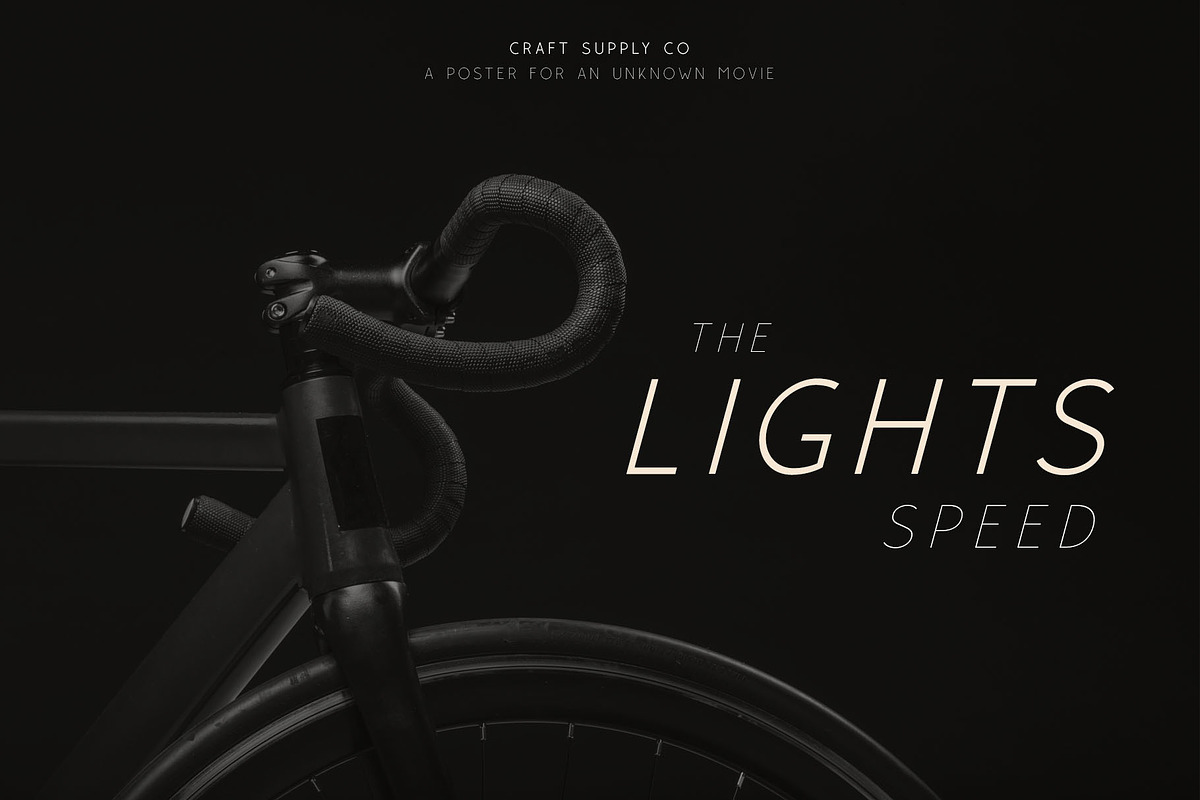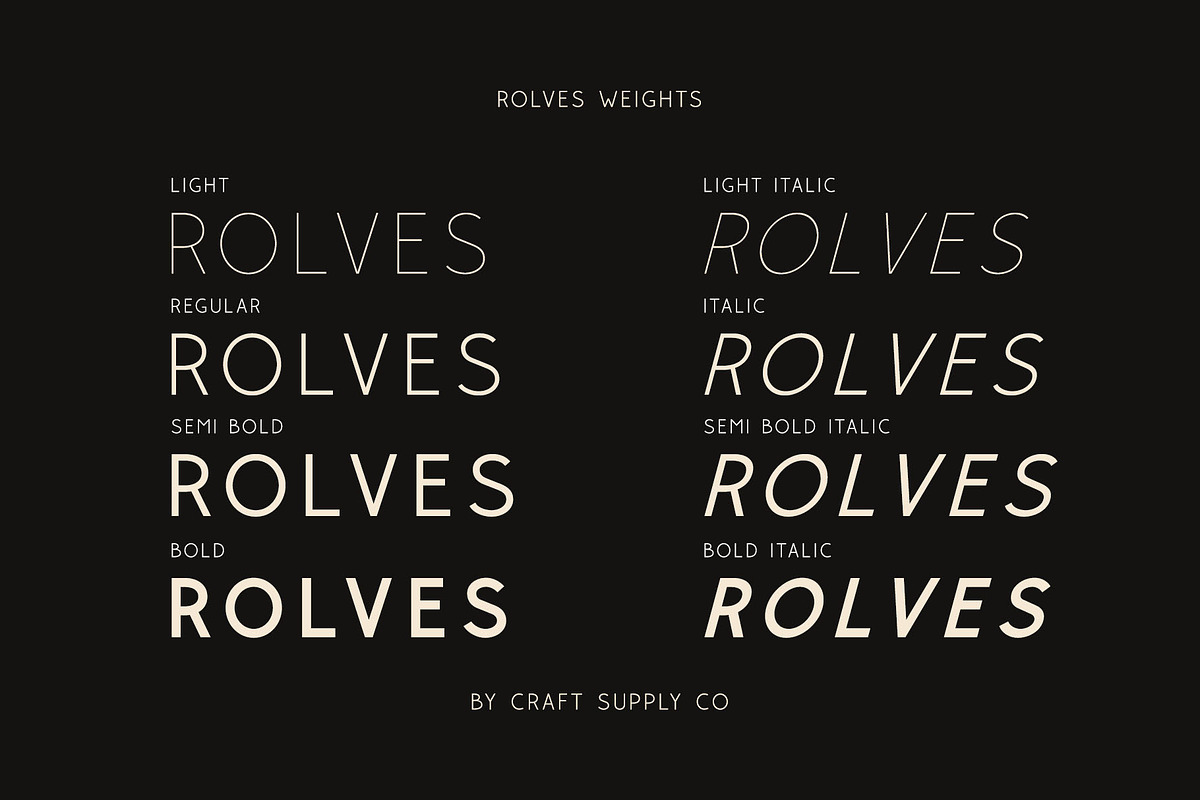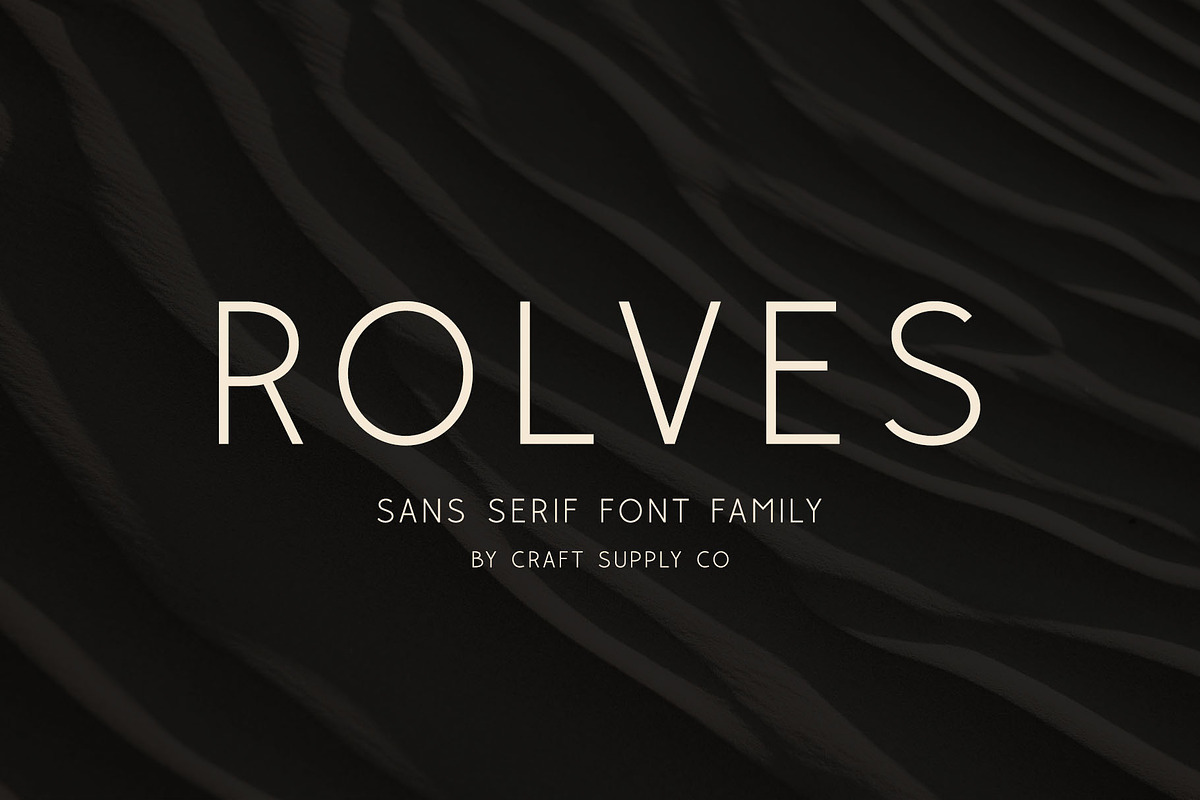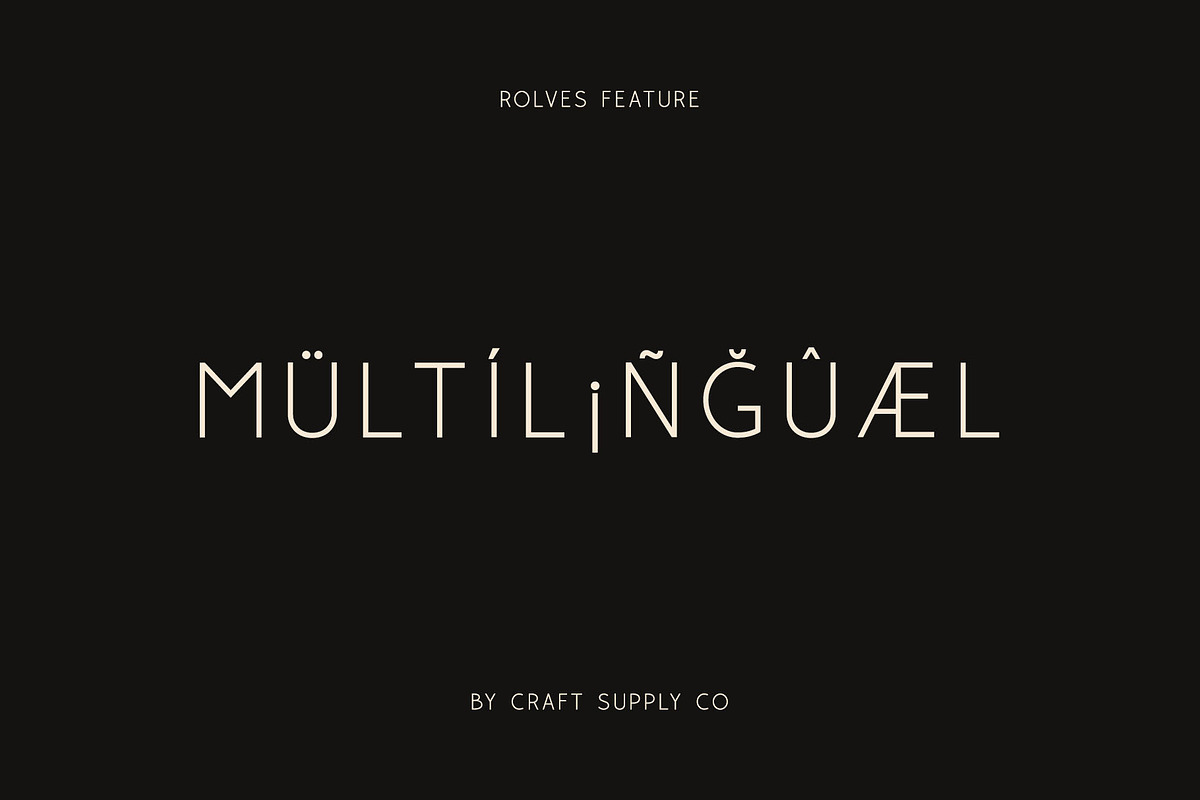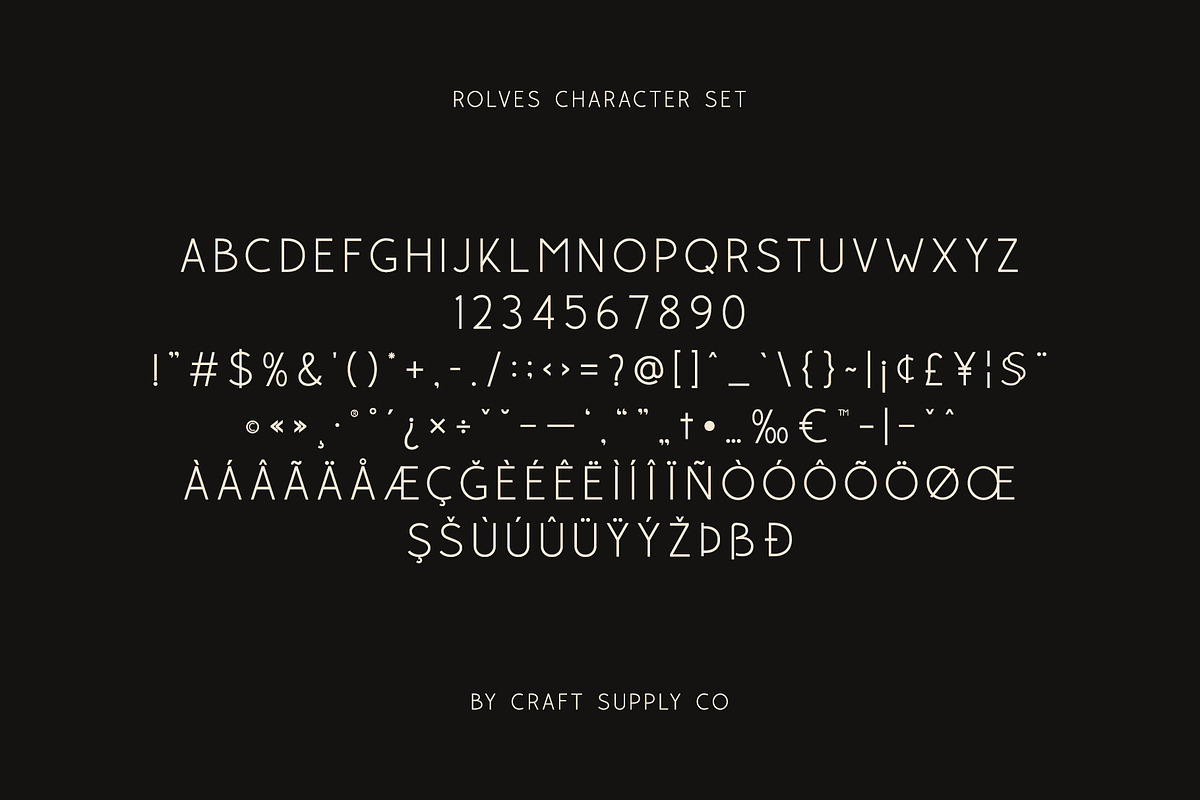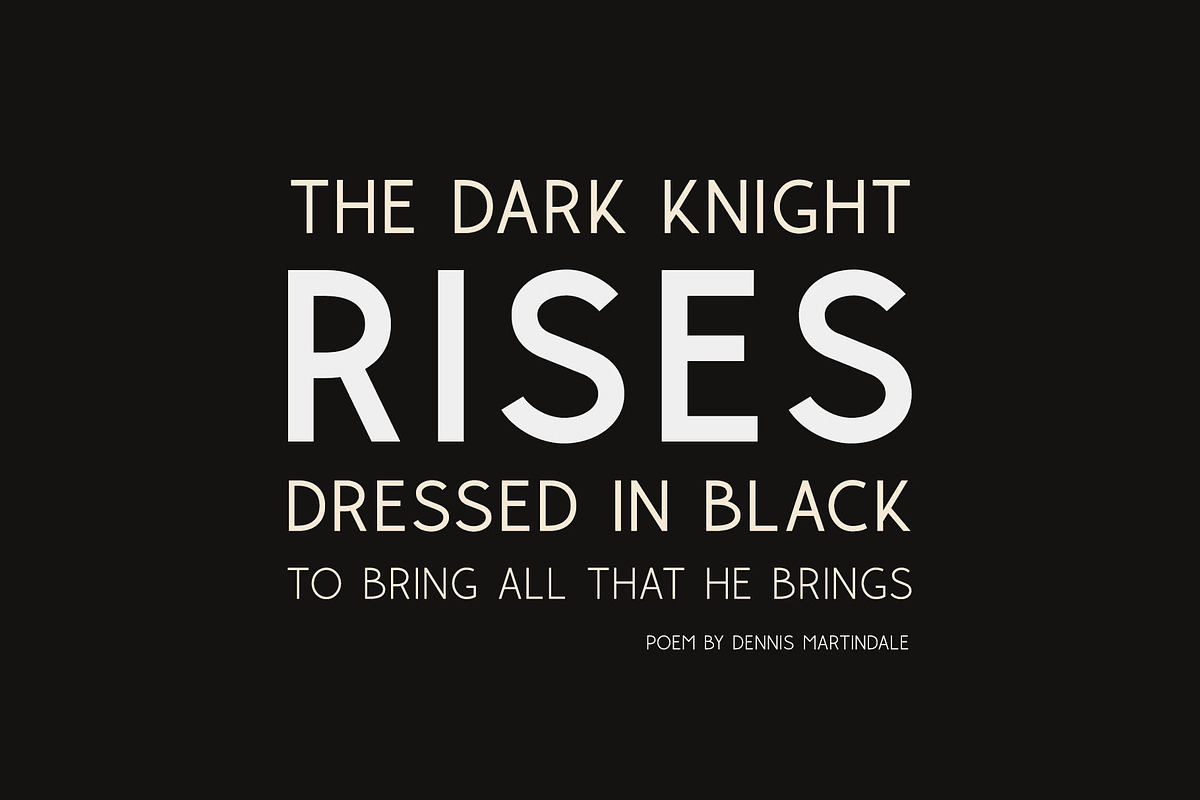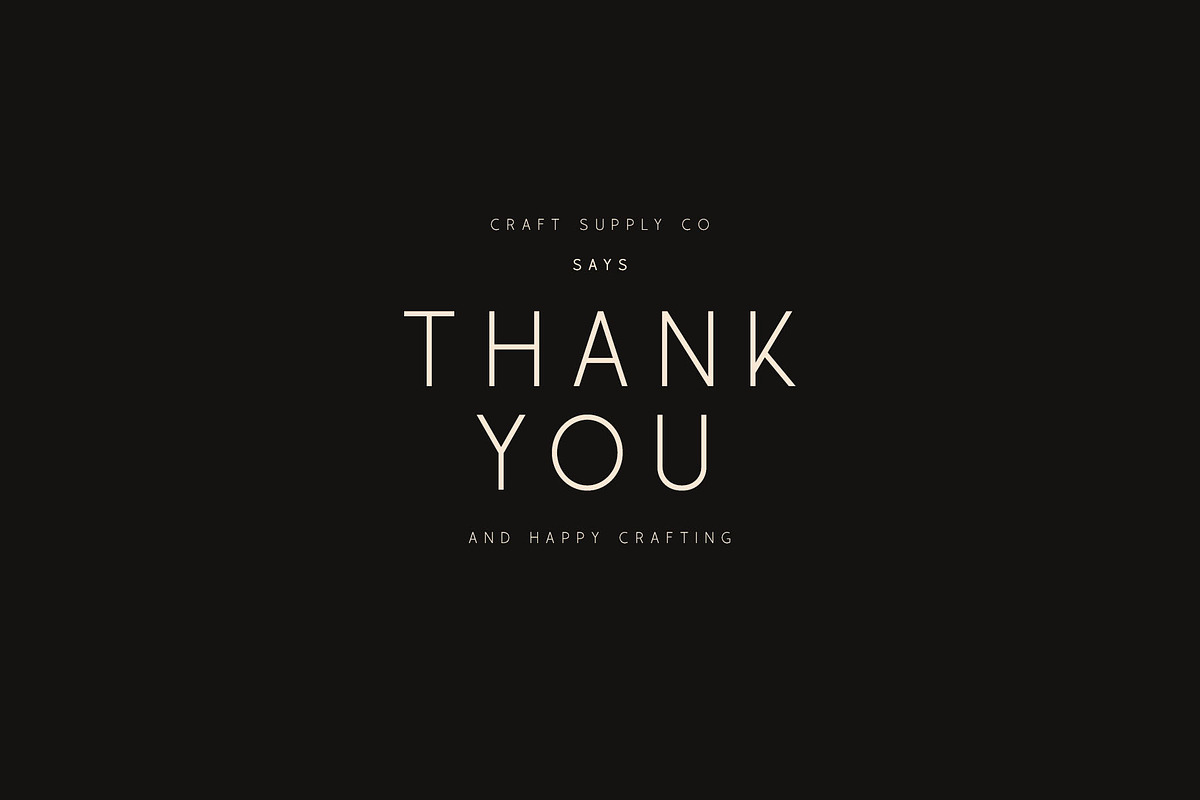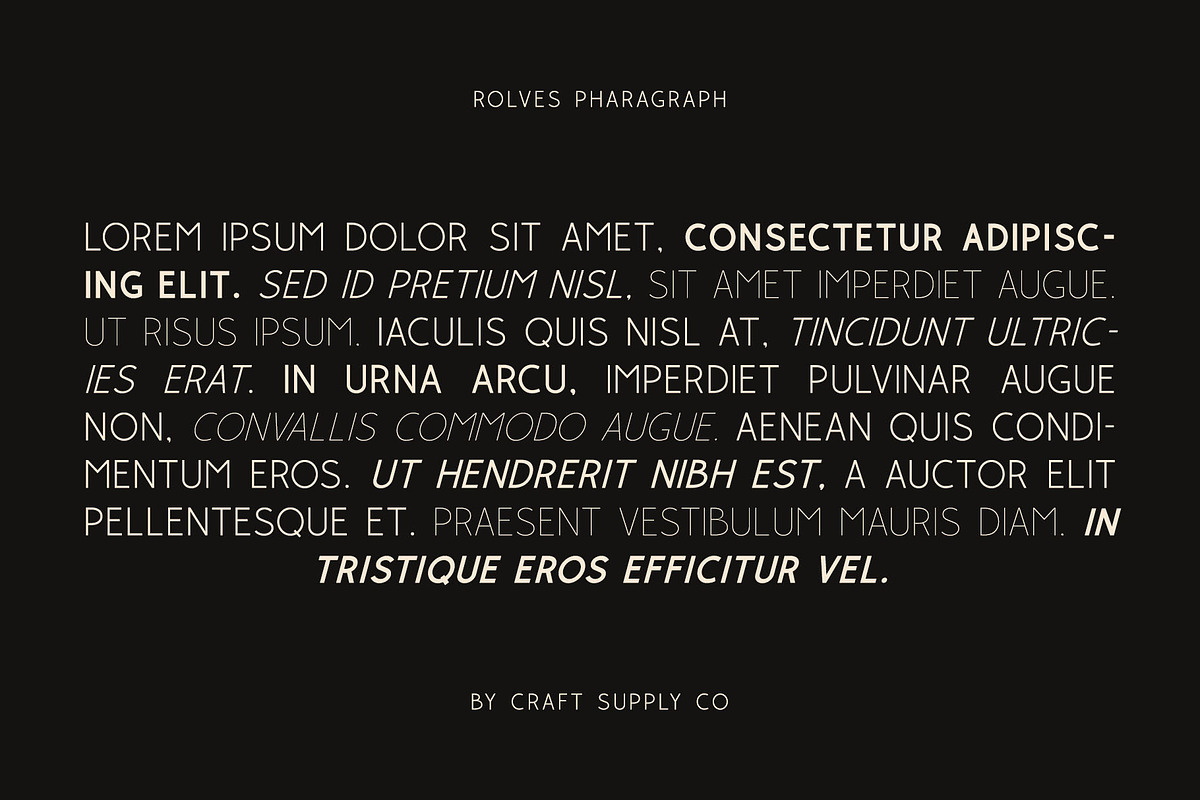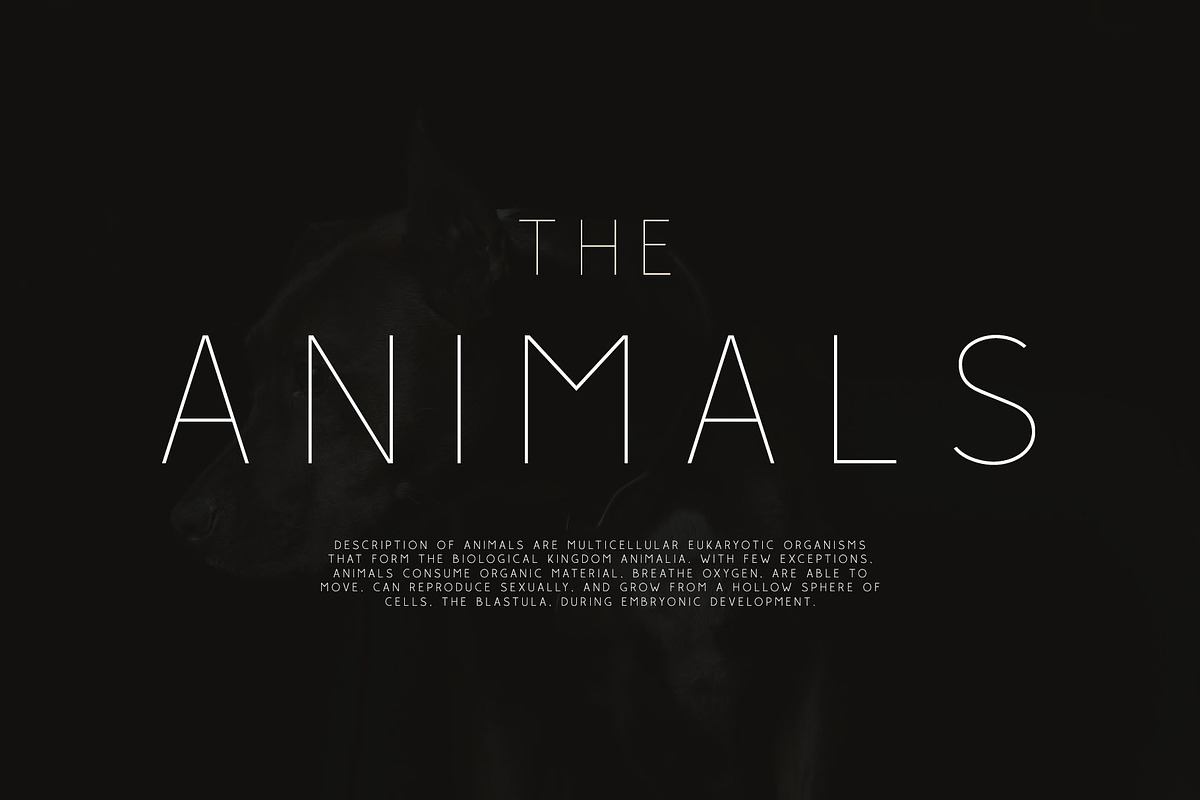
Rolves - Sans Serif Font Family
Introducing New Font : Rolves - Sans Serif Font Family | 8 Fonts
Rolves - Sans Serif Font Family is a modern sans serif font family whose design refers us to the style of modern sans serif. The distinctive features of Rolves - Sans Serif Font Family are the relatively low contrast of strokes, the slightly squarish shapes characters and the emphasized business like simplicity.
Rolves - Sans Serif Font Family has been crafted from scratch with a structural logic of its own: a fusion of pure geometry and optical balance. By combining a variety of styles Rolves - Sans Serif Font Family is suitable for Logo, greeting cards, quotes, posters, branding, name card, stationary, design title, blog header, art quote, typography
Rolves - Sans Serif Font Family also suitable for art, modern envelope lettering or book design, happening style like handdrawn design or watercolor design theme, craft design, any DIY project, book title, wedding font, pop vintage design, or any purpose to make our art/design project look pretty and trendy.
- All Caps Characters
- Accents (Multilingual characters) AÀÁÂÃÄÅCÇDÐEÈÉÊËIÌÍÎÏNÑOØÒÓÔÕÖUÙÜÚÛWYÝŸỲŸÆŒßÞþ